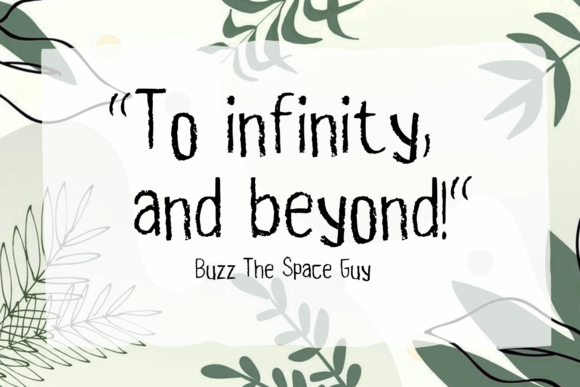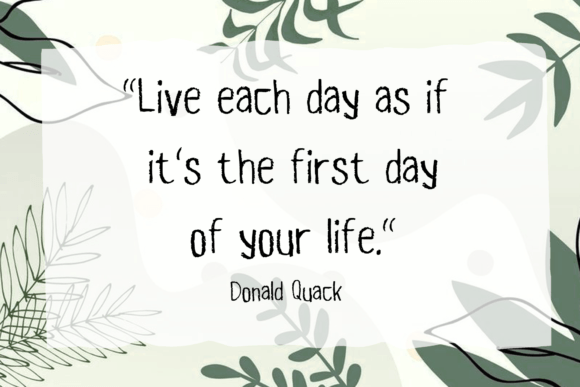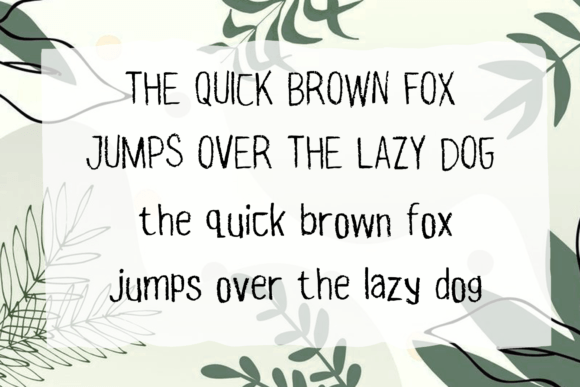
Sans Pencil Font
About Sans Pencil Font
Sans Pencil is a fun pencil handwritten font. Whether you’re using it for crafts, digital design, presentations, or making greeting cards, this font has the potential to become your favorite go-to font, no matter the occasion!